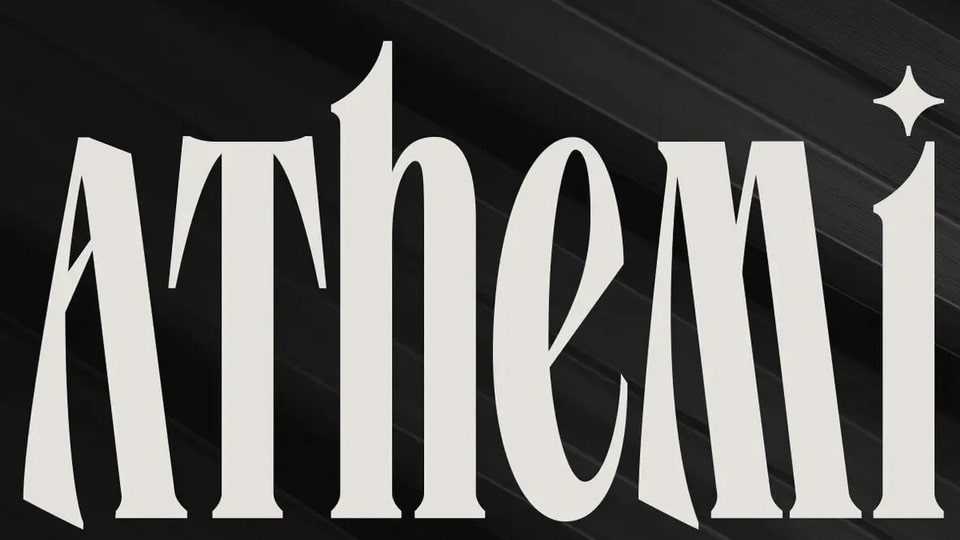
Download Arthemi font, a sleek serif condensed typeface that harmonizes classic sophistication with a modern edge. Each meticulously crafted letter exudes its own unique flair.